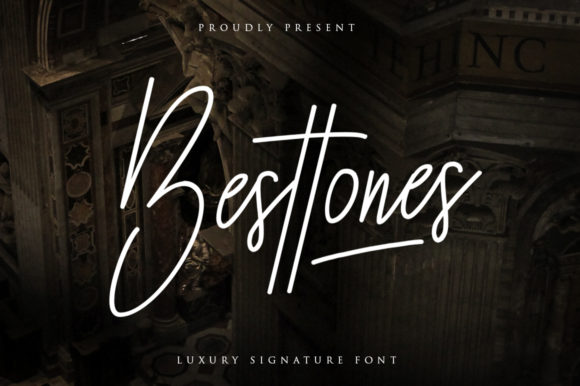
Welcome to the world of elegance and refined aesthetics, where every letter dances with grace and personality. Introducing Besttones Font, a captivating script typeface that exudes a timeless aura of sophistication and charm. This handcrafted masterpiece, meticulously crafted by the skilled hands of indotitas, is a symphony of flowing lines and delicate curves that evoke the essence of true artistry.
Discover the allure of Besttones Font, a font family that captures the essence of modern calligraphy, blending classic beauty with a touch of contemporary flair. Its graceful strokes and effortless elegance bring a touch of exclusivity to your designs, ensuring they stand out from the ordinary. Whether you're creating logos that demand attention, branding that exudes professionalism, or invitations that radiate joy and elegance, Besttones Font is your perfect companion.
Immerse yourself in the versatility of Besttones Font, a script family that adapts seamlessly to a multitude of creative endeavors. From the delicate intricacy of wedding designs to the bold statements of stationary, Besttones Font effortlessly elevates your creations. Its versatility extends to social media graphics, where its charm and sophistication shine through, captivating audiences and leaving a lasting impression.
Experience the magic of Besttones Font and unlock a world of creative possibilities. Its luxurious signature style adds a personal touch to logos, branding, and invitations, transforming them into expressions of individuality and taste. Stationary takes on a new level of elegance, as each letter dances across the page with grace and refinement. Wedding designs come alive with a touch of romance and enchantment, making your special day truly unforgettable.
Embrace the allure of Besttones Font and elevate your creative journey to new heights. Explore the endless possibilities it offers, from the timeless appeal of classic calligraphy to the captivating allure of modern design. Indulge in the beauty of each letterform, meticulously crafted to evoke emotions and create a lasting impact.